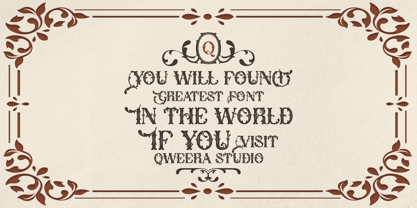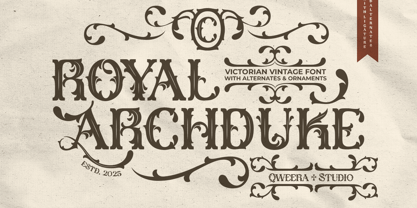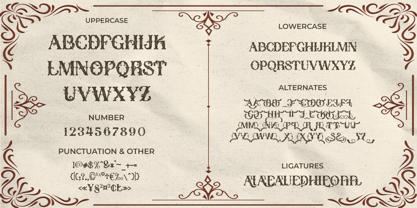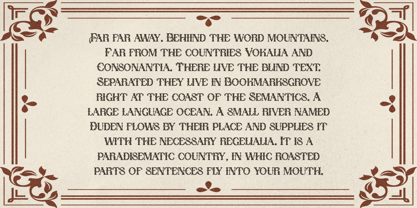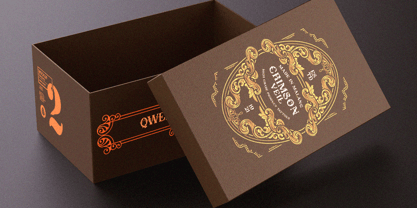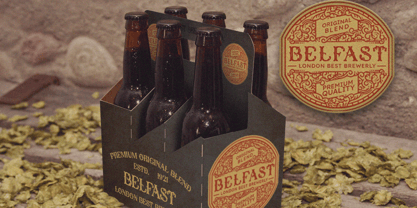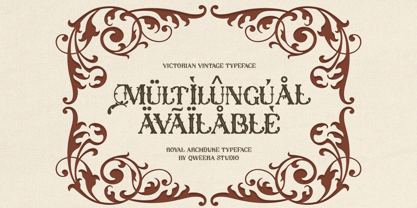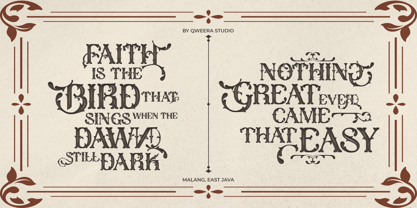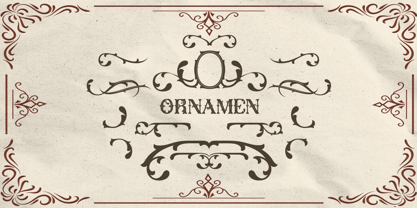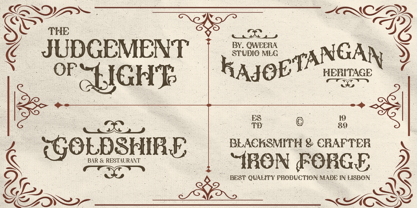
Royal Archduke
Royal Archduke – Victorian Vintage Font
Royal Archduke is an exquisite Victorian vintage font designed for elegance and sophistication. Featuring alternates and ornaments, this font offers flexibility to create unique and luxurious designs. Perfect for branding, posters, magazines, packaging, and print design, Royal Archduke embodies the charm of the Victorian era with intricate details and ornate styling. Whether for logos, invitations, or book covers, this font ensures a classic yet timeless aesthetic. Bring the grandeur of history into your design with Royal Archduke.
• All Multilingual symbol
• Opentype features ( ligature, alternate )
Multilingual character supports : (Afrikaans, Albanian, Catalan, Croatian, Czech, Danish, Dutch, English, Estonian, Finnish, French, German, Hungarian, Icelandic, Italian, Lithuanian, Maltese, Norwegian, Polish, Portuguese, Slovenian, Spanish, Swedish, Turkish, Zulu)